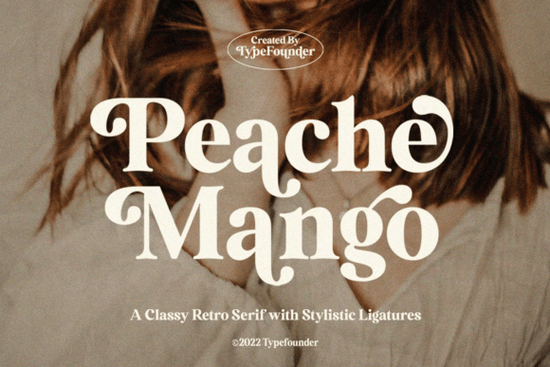
When you need a typeface that feels both nostalgic and highly readable, the Peache Mango Font offers a great solution for vintage-inspired projects. This retro serif brings a warm, 1970s editorial vibe to your work, making it ideal for everything from organic product packaging to cozy lifestyle branding. Instead of relying on harsh, modern geometric shapes, it uses thick, soft curves and charmingly exaggerated terminals to create a welcoming, high-end look. Designers and small business owners often struggle to find a vintage face that doesn't look dated or overly messy, but this option strikes a careful balance between old-school charm and modern clarity.
What makes this typeface stand out for vintage projects?
The design leans heavily into the playful yet sophisticated editorial styles of the 1970s. If you want to see how those thick, soft curves look in different sizes, you can explore this specific retro serif to check out the full character set. The exaggerated terminals give it a distinct personality without sacrificing legibility, which is crucial when you are designing for small businesses or print-on-demand items. The rounded edges soften the overall appearance, making it feel approachable rather than overly formal.
Where should I use a warm, vintage display face?
Finding the right context for a nostalgic typeface can sometimes be tricky. This particular face works best in medium to large sizes where its unique details can truly shine. Here are some of the most effective ways to apply it:
- Organic branding: Perfect for artisanal food labels, natural skincare packaging, or boutique coffee shop menus.
- Retro packaging: Adds a nostalgic, tactile touch to vintage-inspired product boxes, paper bags, and tags.
- Editorial layouts: Great for cozy lifestyle magazine headers, feature article titles, and newsletter banners.
- Social media: Creates chic, eye-catching headlines for Instagram carousels, Pinterest pins, and YouTube thumbnails.
How does it compare to other serif options for crafters?
Many standard serifs lean toward traditional or highly formal aesthetics, which can feel stiff for modern lifestyle brands and handmade goods. When you browse through Peache Mango alongside other options, you will notice its unique balance of comfort and style. It avoids the sharp, rigid edges of classic book fonts, opting instead for an rounded, friendly feel. This makes it a fantastic choice for crafters and hobbyists who want their physical products to feel handmade and inviting. If you are looking for more options in this general style, you might also want to browse similar slider styles to see how different curve variations affect the overall mood of your layout.
What are the best practices for pairing this font?
Because this display face has so much visual character, it needs a quiet partner to balance the composition. Pairing it with a clean, simple sans-serif or a very basic, unadorned serif will keep your design from looking cluttered. Follow these practical tips for the best results:
- Use a lightweight or regular sans-serif for your body text to maintain high readability.
- Keep the color palette warm and earthy, like terracotta, mustard, or sage green, to match the vintage vibe.
- Avoid using it for long paragraphs; reserve it strictly for headlines, logos, and short quotes.
- Give the letters plenty of breathing room by increasing the line height in your body text.
Before you finalize your next design project, run through this quick checklist to ensure your typography choices are working effectively:
- Check readability: Zoom out to 50 percent and see if the main headline is still clear from a distance.
- Test the pairing: Make sure your body font does not compete with the display face for attention.
Once you have confirmed these details, you can confidently apply this warm, nostalgic typeface to your next branding or packaging design.